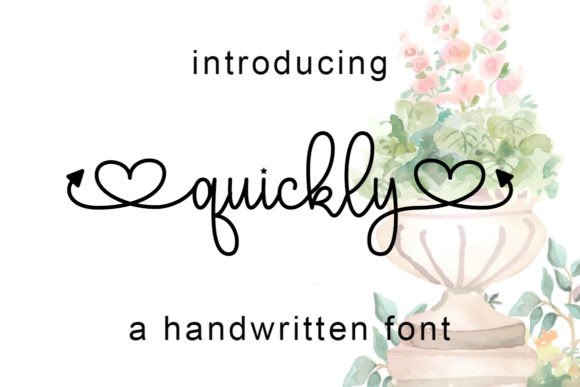
Introducing Quickly Font - The Ultimate Typeface for Your Christmas Card Masterpieces!
Are you ready to infuse your Christmas cards with a touch of enchantment? Look no further than the mesmerizing Quickly Font, a creation by the renowned cavalera creative. This script font is not just your ordinary typeface; it's a gateway to a world of endless design possibilities!
Crafted with meticulous attention to detail, Quickly Font is the perfect choice for breathing life into your logos, branding, quotes, clothing, tote bags, business cards, websites, and so much more. Its elegant and whimsical strokes will transport your projects to the highest level of sophistication and creativity.
But what sets Quickly Font apart from the rest? Let's delve into its captivating features:
1. Unleash Your Creative Spirit: Quickly Font is specifically tailored to elevate your Christmas card designs. Its graceful curves and distinct script style exude warmth and festive cheer, making it the ideal companion for spreading holiday joy.
3. Versatile Application: Beyond Christmas cards, Quickly Font is your ultimate design ally for any occasion. Whether you're crafting personalized gifts, revamping your website, or launching a new brand, this font effortlessly adapts to suit your creative vision.
4. Unleash Emotion: At cavalera creative, we believe in the power of emotions. Quickly Font captivates hearts with its enchanting allure, evoking feelings of joy, love, and excitement. Let your audience experience the magic firsthand!
5. Stand Out from the Crowd: In a sea of mundane fonts, Quickly Font shines as a beacon of uniqueness. Its eye-catching appeal and distinctive charm ensure that your designs will never go unnoticed. Prepare to make a lasting impression!